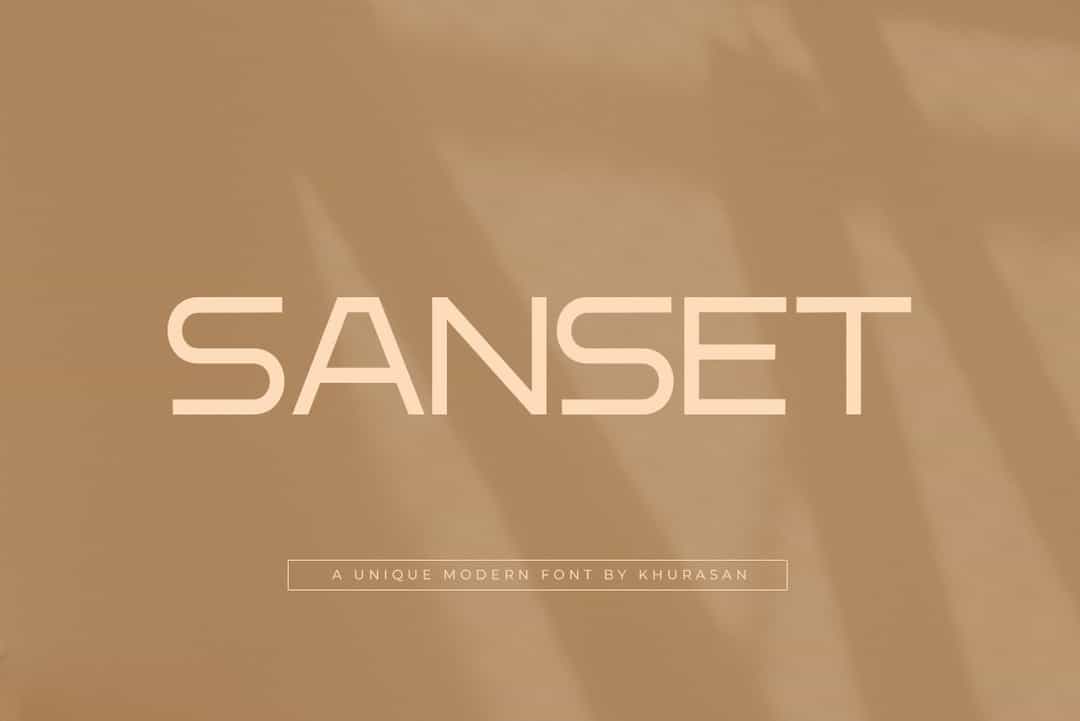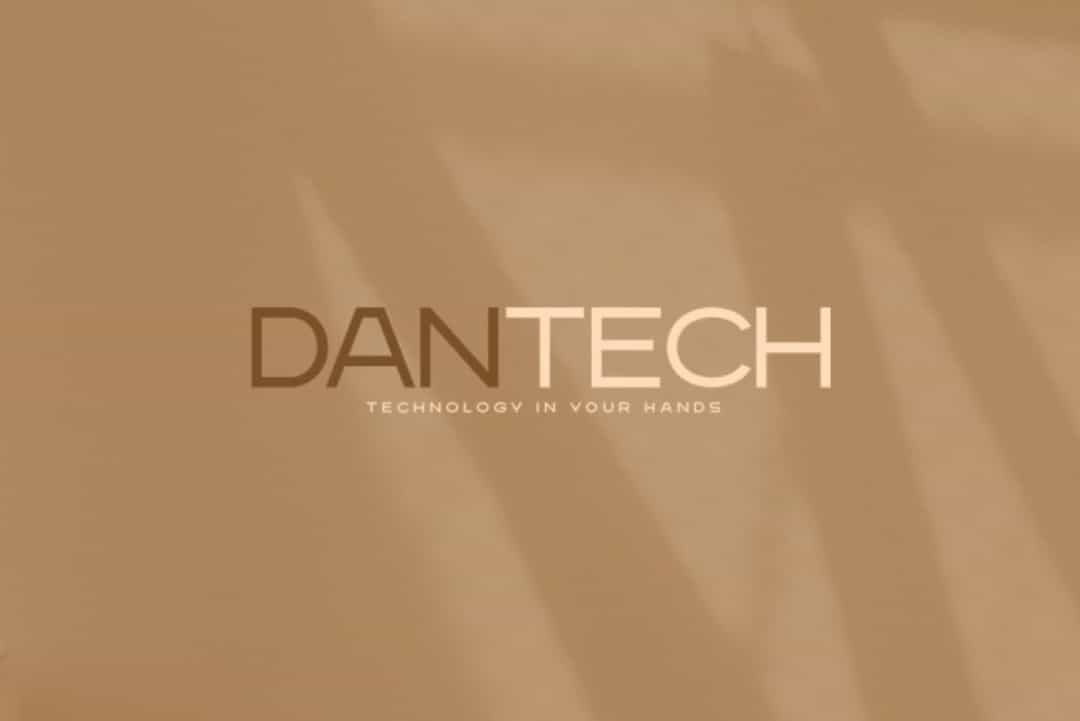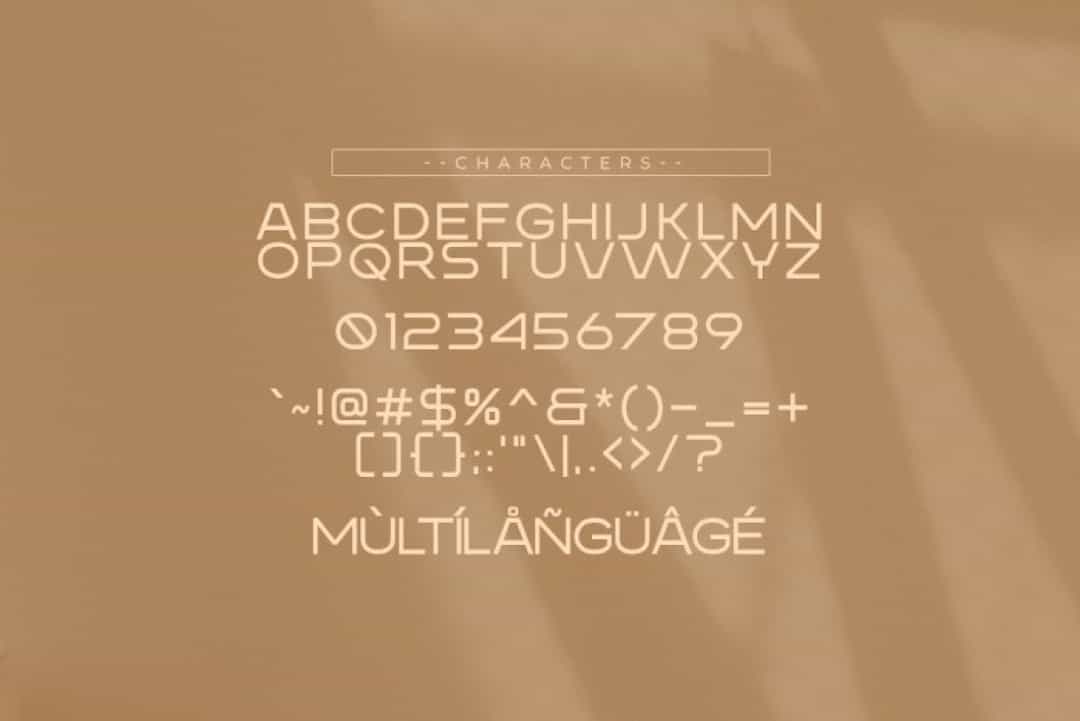
Sanset is an elegant modern sans serif font style. Its soft and fluid implementation gives this font its elegant yet feminine appeal, making it the ideal font choice for feminine branding projects and designs. Add Sanset to your project designs to see just how effective they become!